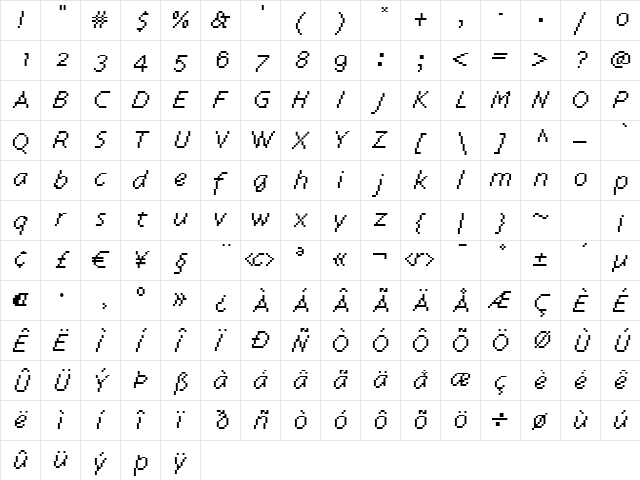
BetabetWebItalic Regular
Design Context for BetabetWebItalic Typeface
BetabetWebItalic is a composed and adaptable typeface that performs quietly and consistently across a wide range of design contexts. The slanted form adds forward momentum and visual energy.
Pro Tip: Try BetabetWebItalic for annotation and caption copy alongside an upright companion — the contrast in angle creates a dynamic but ordered typographic system.